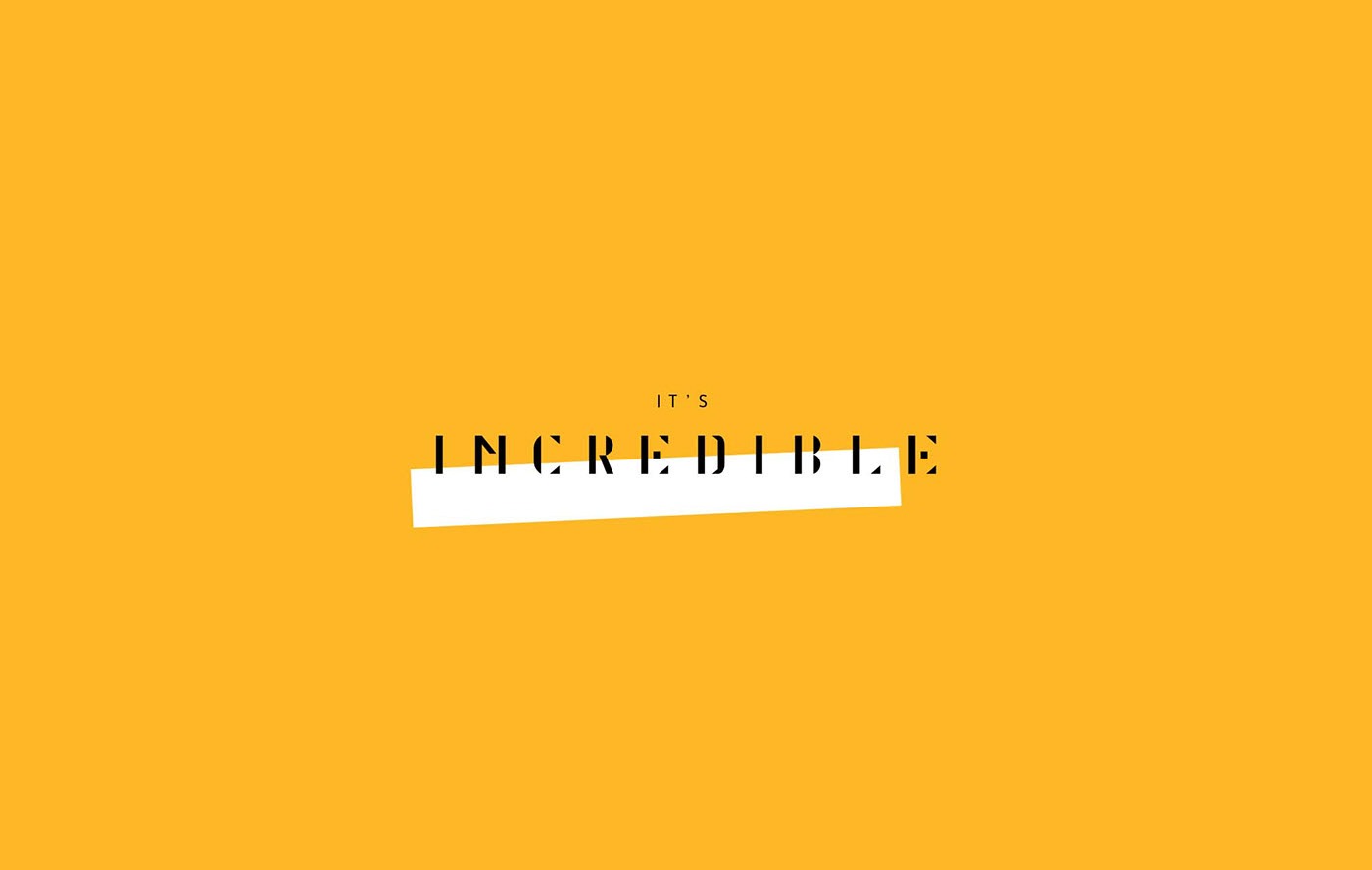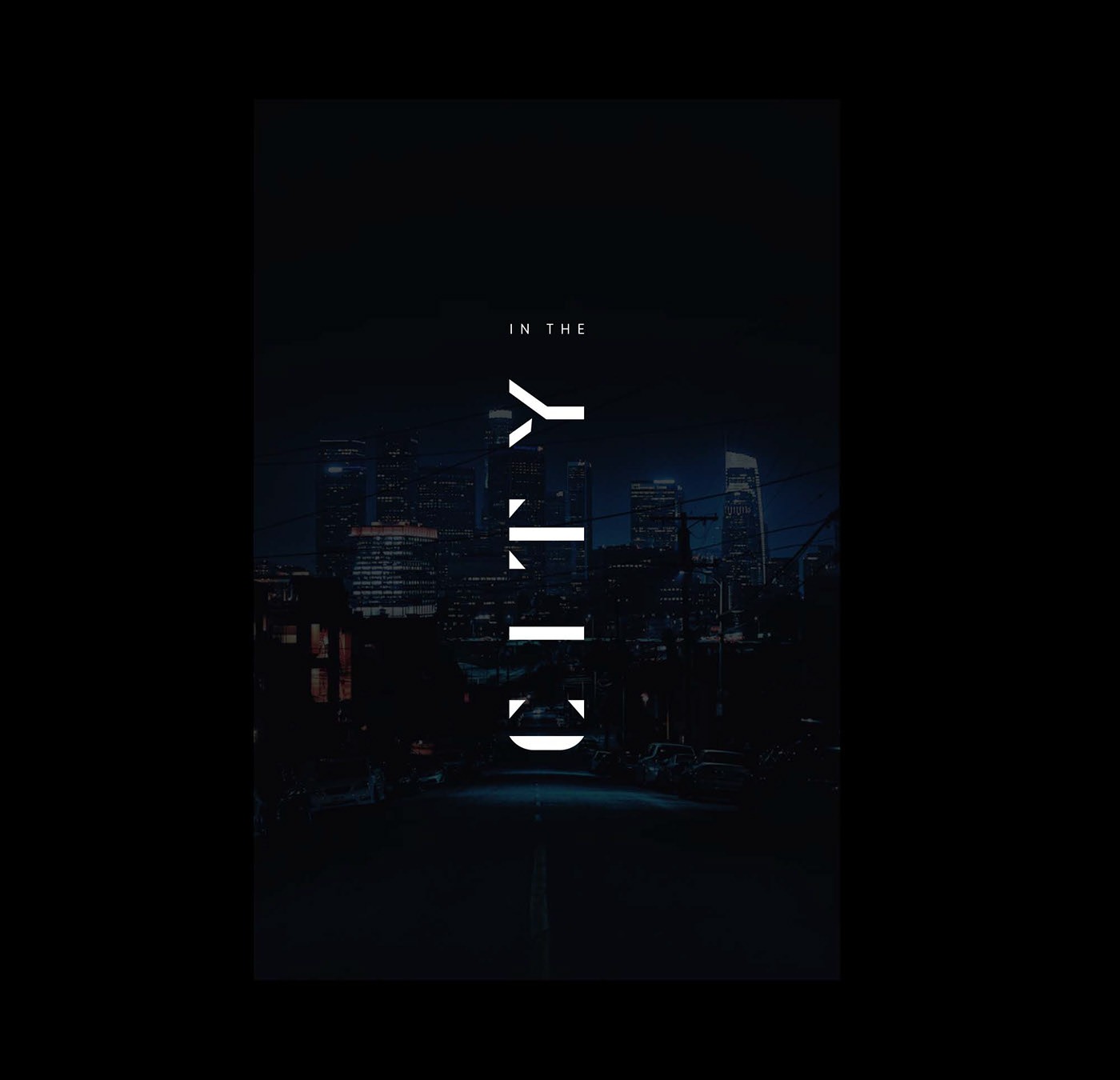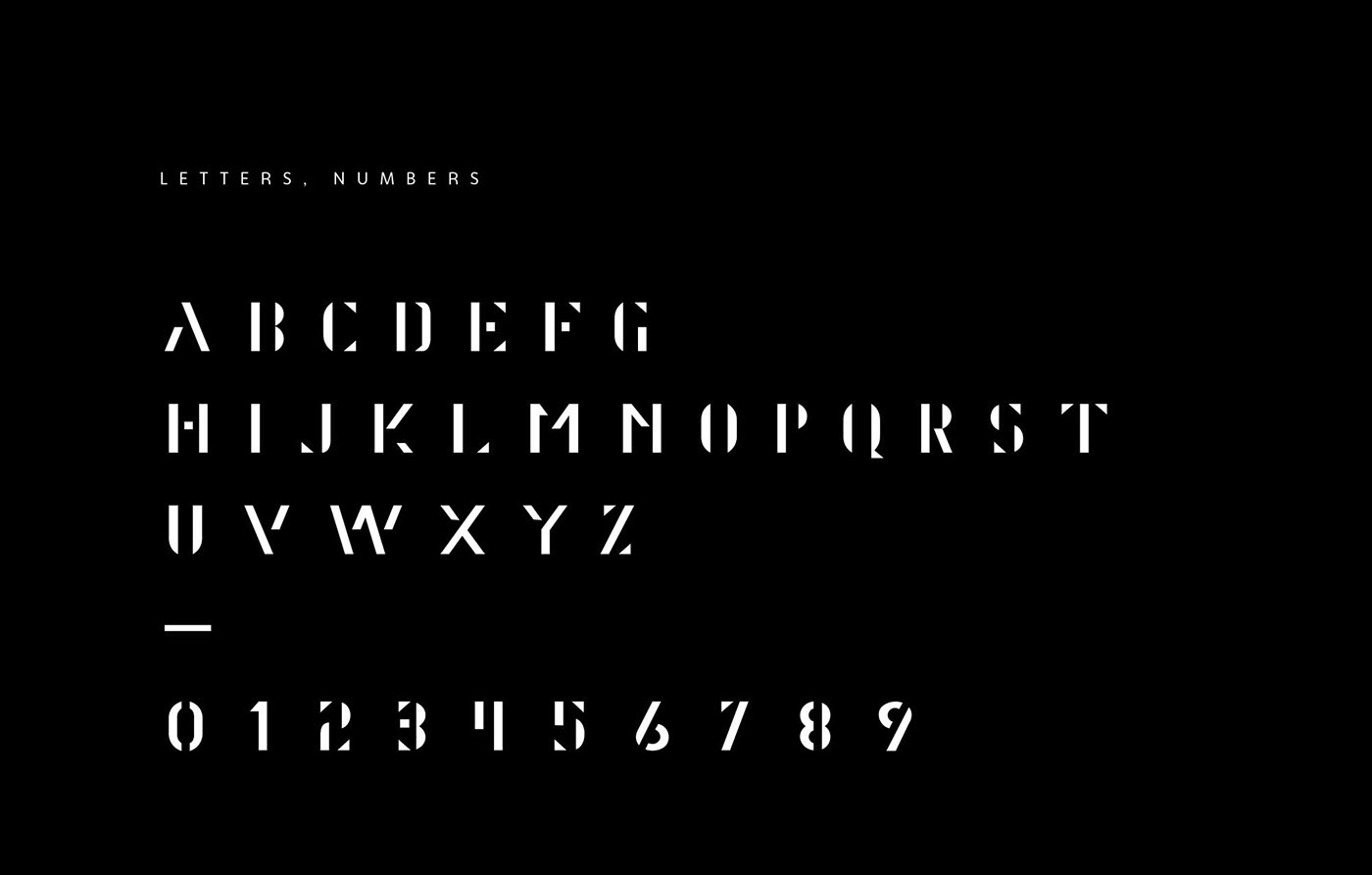
Alaska Font
Alaska Display Font
It’s a serif font created by Unblast with modern, classic style. It consist of uppercase letters as well as numbers and glyphs. This typeface can be used in logo design, packaging, posters, print and web projects. You can also integrate it in application development to create a modern high tech designs. Further, you can play with the letters to create different styles and various variations of the font. Alaska is intended more for headings rather than body text.